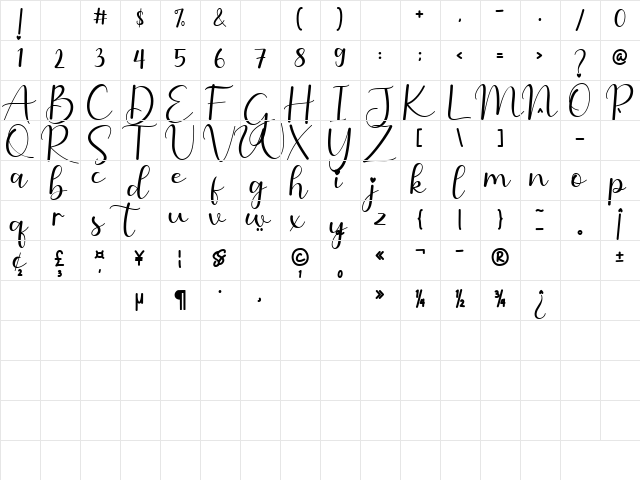
Valenttiena Regular
Design Context for Valenttiena Typeface
Valenttiena is a composed and adaptable typeface that performs quietly and consistently across a wide range of design contexts.